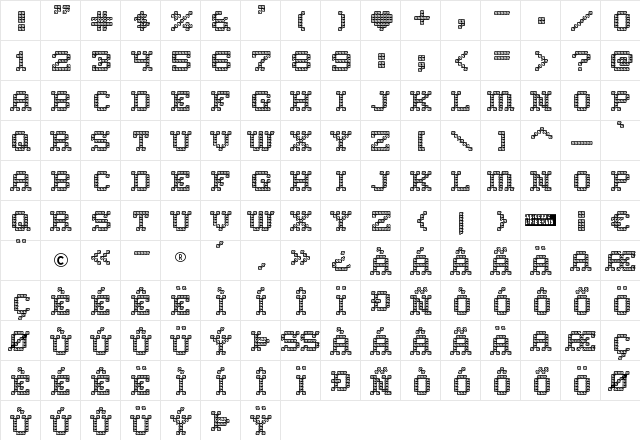
Home Sweet Home Outline Regular
Design Context for Home Sweet Home Outline Typeface
Home Sweet Home Outline is built around its visual character rather than neutral utility — its distinctive forms are designed to make an impression at display sizes.
Font Pairing: Pair with a clean neutral sans-serif for body copy to let Home Sweet Home Outline's character lead without overwhelming the composition.
Pro Tip: Treat Home Sweet Home Outline as the centrepiece of your typographic hierarchy. One strong heading set in a decorative face can carry an entire layout.